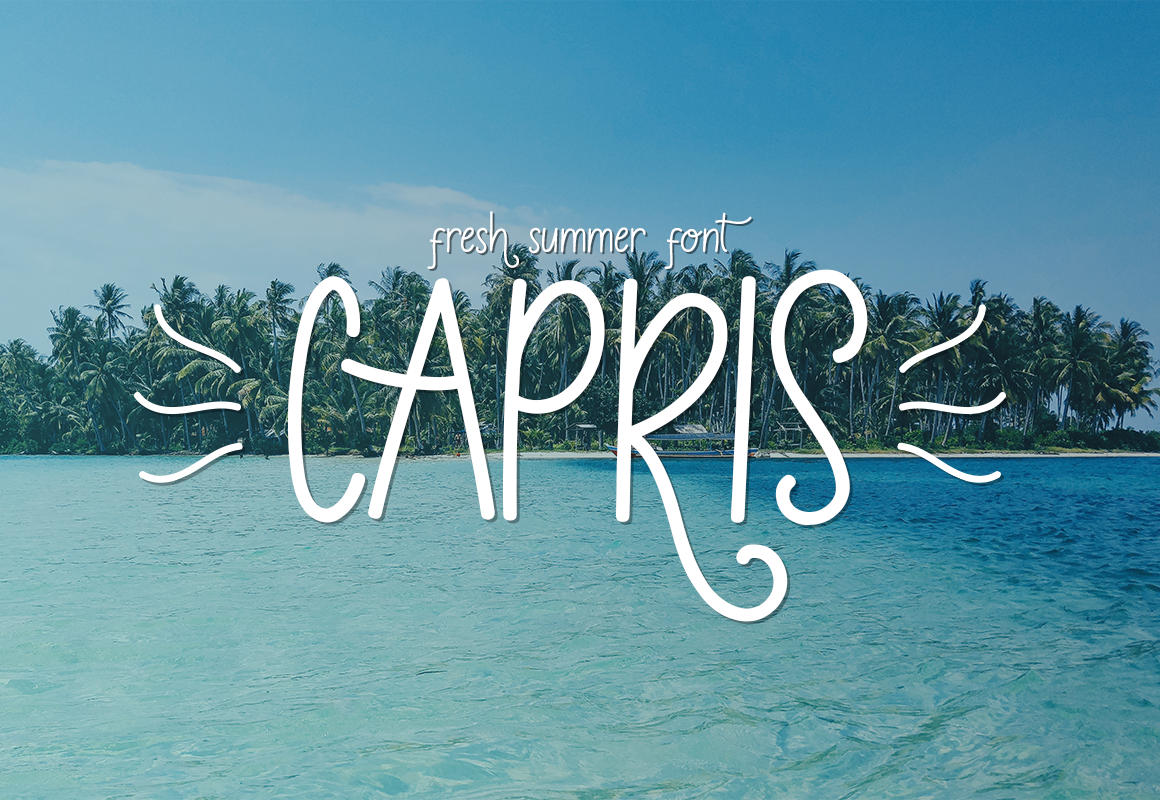
Capris - Fresh Summer Font
Capris is a fresh summer font that includes:
- Lowecase and uppercase letters
- Latin extended characters, basic currencies, punctations, and numbers
- Stylictic alternates and ligatures
- PUA encoded extra characters
Which international languges are supported?
The latin extended characters included in Capris are those that are used in the following languages: Albanian, Azerbaijani, Bosnian, Catalan, Croatian, Czech, Dutch, English, Esperanto, Estonian, Filipino, Finnish, French, German, Hungarian, Icelandic, Italian, Latvian, Lithuanian, Livonian, Maltese, Polish, Portuguese, Romanian, Slovak, Slovenian, Spanish, Swedish, Turkmen, Welsh.